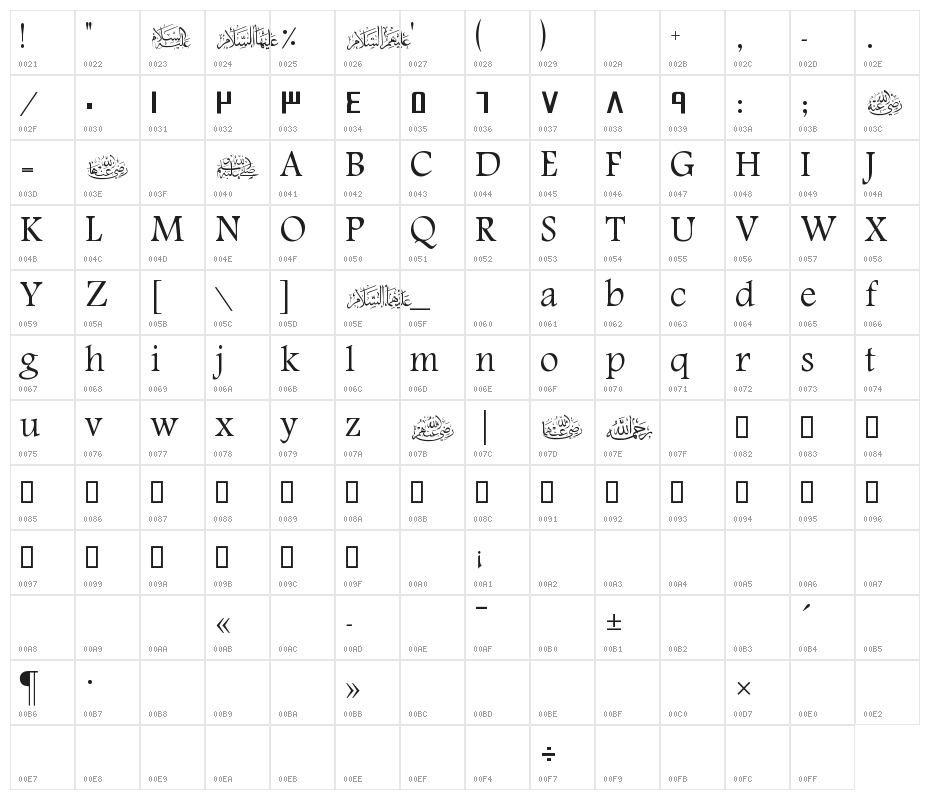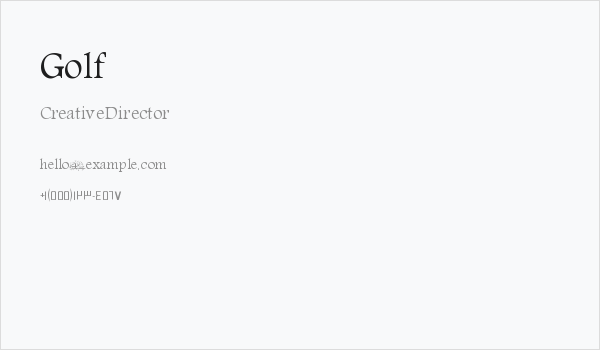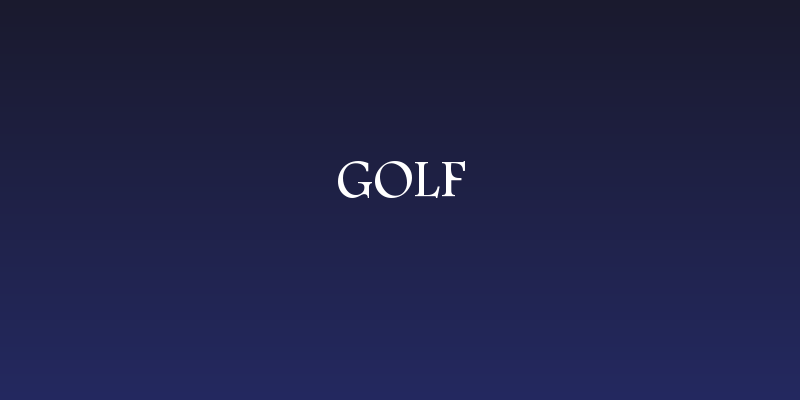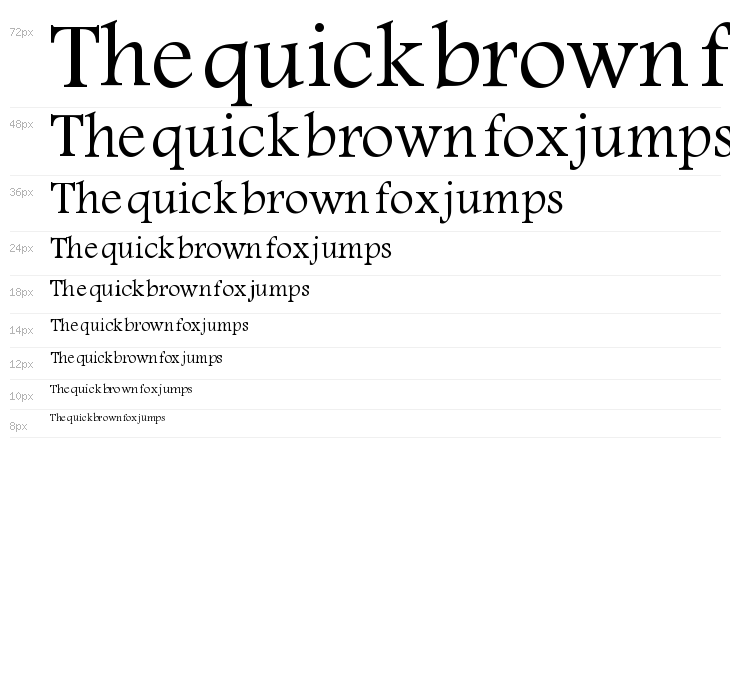
Golf Font
Golf Description
This font exhibits a classic serif style with a refined and elegant appearance. The uppercase letters are bold and commanding, while the lowercase letters maintain a balanced and harmonious flow. The numerals are distinct and clear, featuring a modern twist with their geometric shapes. Special characters are well-integrated, offering versatility for various uses. The font's overall design is timeless, making it suitable for both traditional and contemporary applications. Its high contrast in stroke thickness adds to its readability and aesthetic appeal, ensuring it stands out in any context.
Proposed ProjectsIdeal for book covers, editorial layouts, branding, and formal invitations.